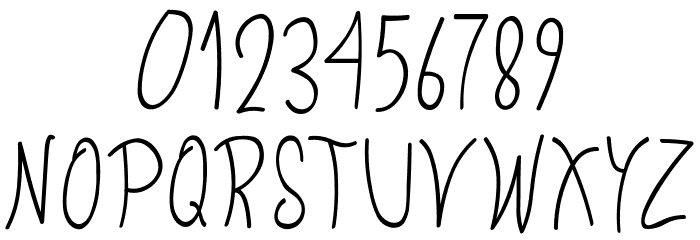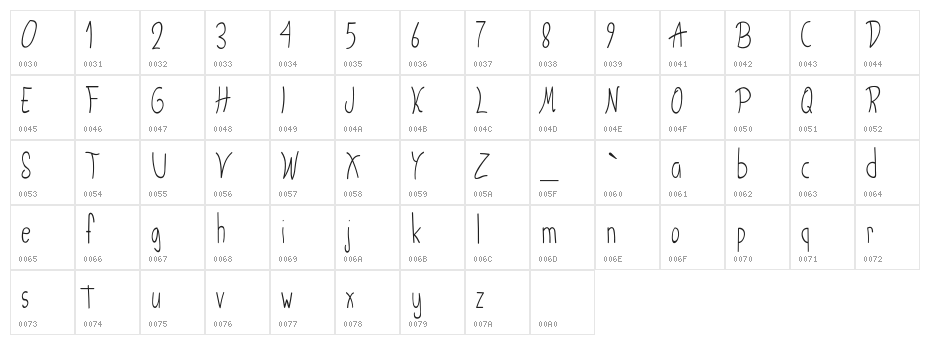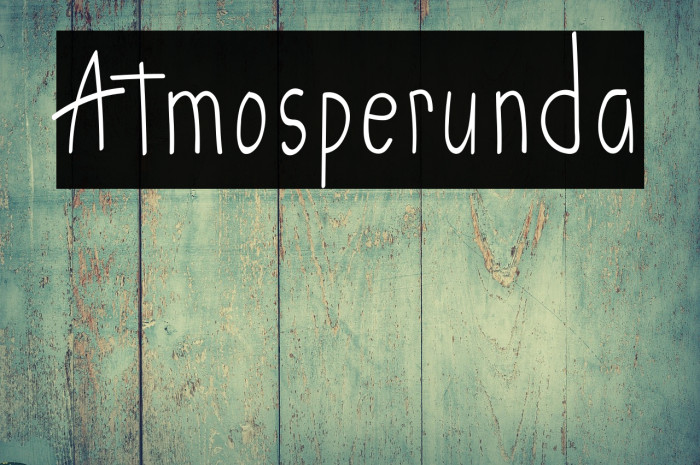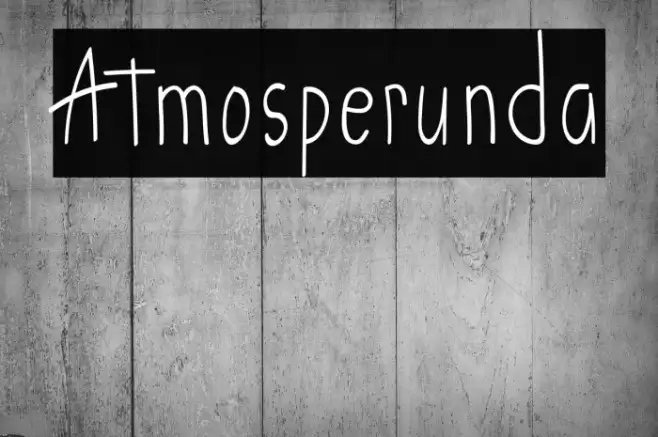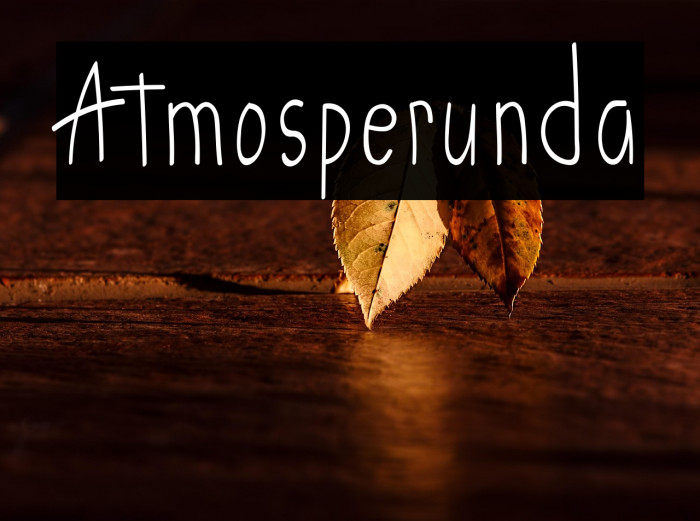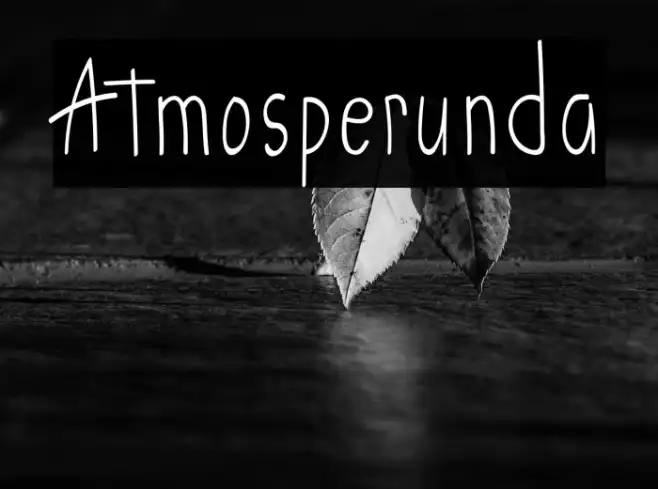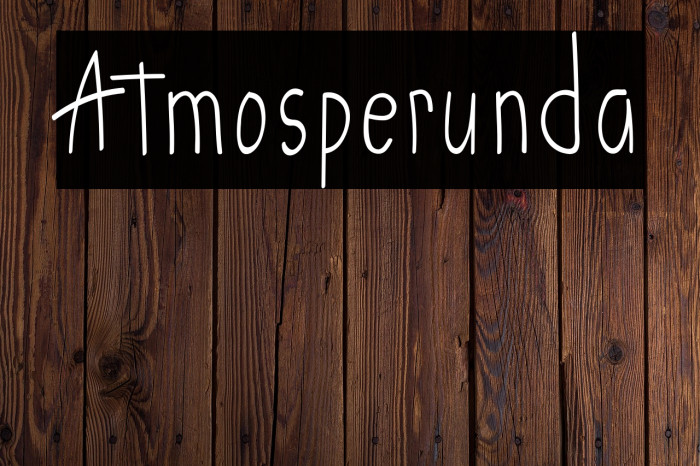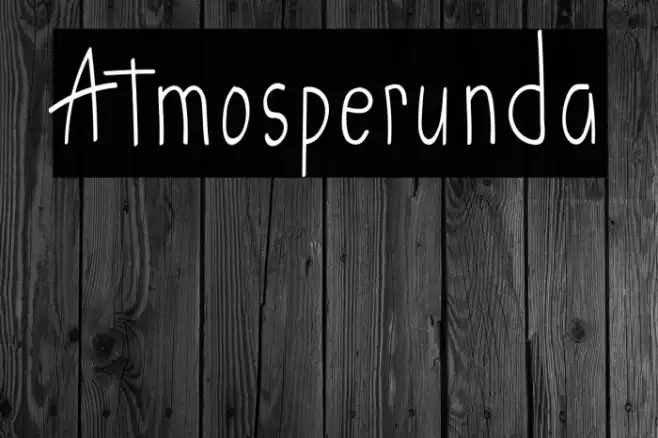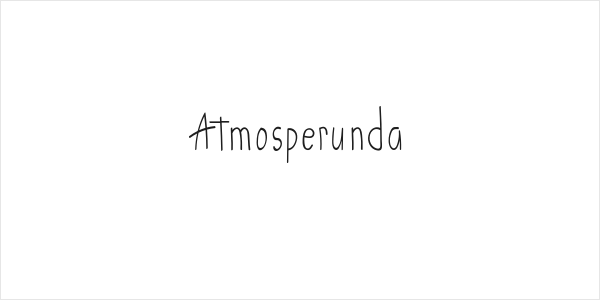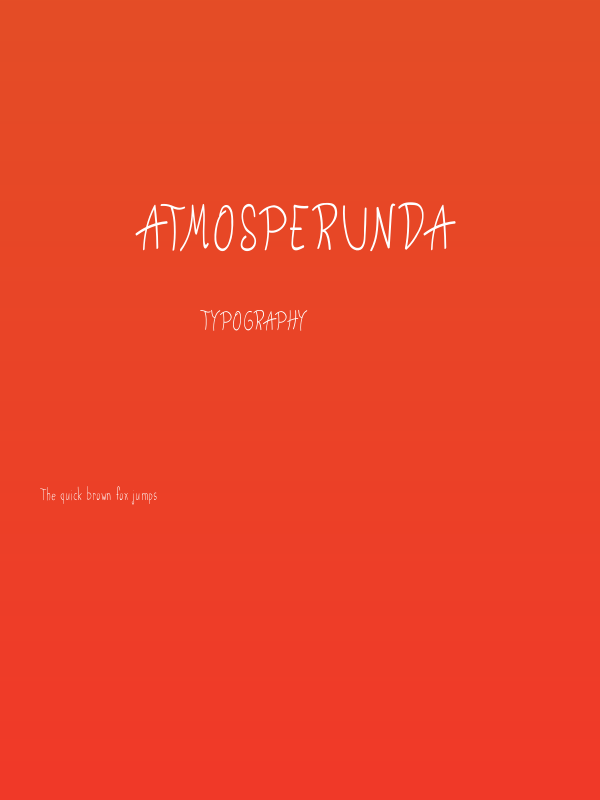
Atmosperunda Font
Atmosperunda Description
This font features a playful and whimsical handwritten style, characterized by its irregular and slightly elongated letterforms. The strokes are consistent in width, giving it a uniform appearance despite its casual nature. The uppercase letters are tall and narrow, while the lowercase letters maintain a similar height, creating a cohesive look. Numbers and special characters follow the same playful aesthetic, making it suitable for informal and creative projects. The font's unique charm lies in its ability to convey a sense of fun and creativity, making it ideal for projects that require a personal touch.
| Proposed Projects | Ideal for greeting cards, children's books, playful branding, and creative posters. |